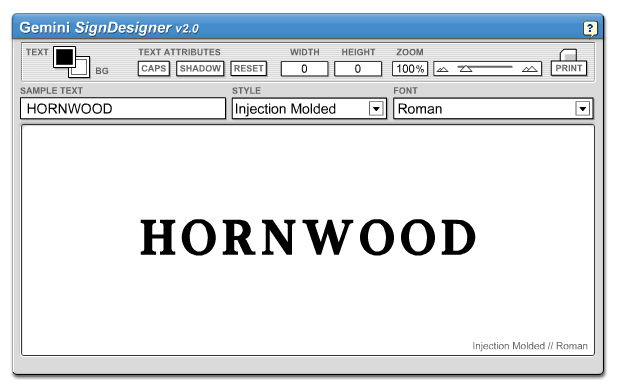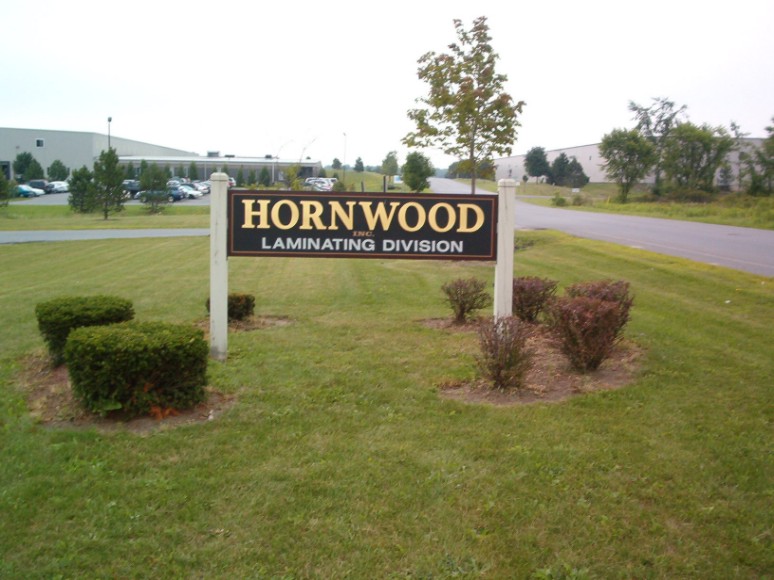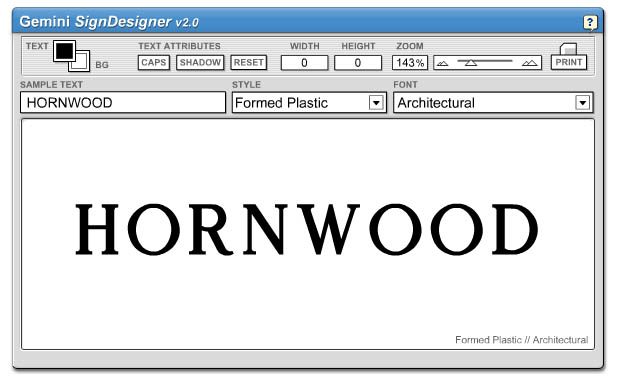
Gemini Font?
Haven't had any luck finding the font for Hornwood. It's a raised letter off MDO, so I'm assuming a Gemini Font?? Can't pin it down in their catalogue.
Also not sure what the sans serif for Laminating is. That's in vinyl.
Haven't done a sign with raised letters before, seems a little intimidating. The current Hornwood Letters are gold plastic, with studs, and lettered two sides on half inch MDO. Would be a great learning experience to do this project.
Hornwood I can not get a match based on different earmarks appearing in the same font so I have no idea what it may have been based on. Parts of it look like Minion, parts like Garamond, nothing looks like all of it.
Laminating is close to Swiss 721 Bold Extended or Helvetica Neue 83. Hard to get any closer from a photo.
For what it's worth, Gemini has a web app for displaying their fonts for different types of letters. Reviewing their formed letter styles, the font Architectural has the same earmarks. It appears lighter in weight but that may be because of the forming process making them bolder asa real letters than their chart would indicate. It does appear to be the only typeface offered that is even close.
Judge for yourself.
GT Roman Round Face appears to be the closest match in the formed plastic series. In the flat cut fonts series GT Roman also appears to be very close.
Very interesting Bobby. You must be looking in their catalog which i don't have available at home. Their Sign Designer gizmo must be an incomplete showing but on expanded exploration outside of the formed plastic showings, I found what they are simply calling Roman under "Injection Molded" styles.
It appears to be the font in question.
To narrow it down, are the sides rounded or sloped in any way or is it flat on top and flat on the sides? If it's rounded, it's a molded letter and is more than likely stock as it cost a bundle to make a mold. If it's flat on the top with no slope on the sides, it could be a a Gemini Minnesota letter or it could be a custom routed letter. They make them up to 3/4" thick. I have custom done all the time when I can't get a stock font. When you look at them, they look just like a Minnesota letter from the front and sides. You can tell by flipping one over, if it's thick all theway through, it's custom cut.
They could be routed letters from a file provided to Gemini. The solid router cut plastic letters can be stud mounted.